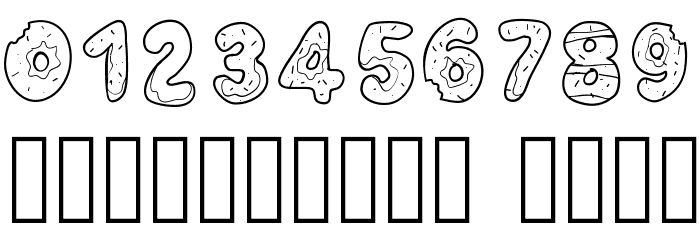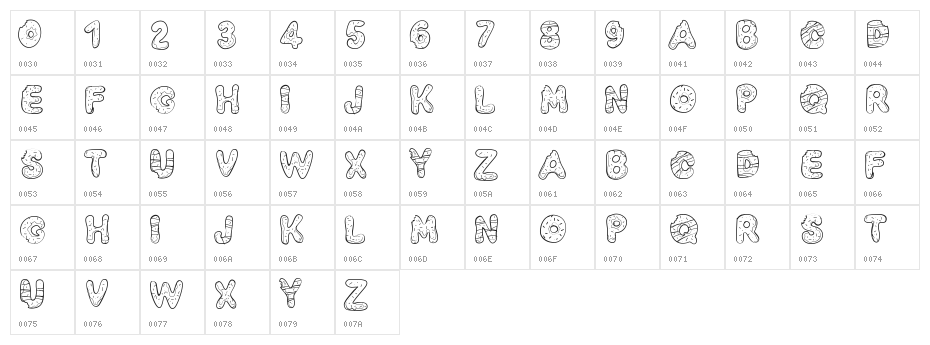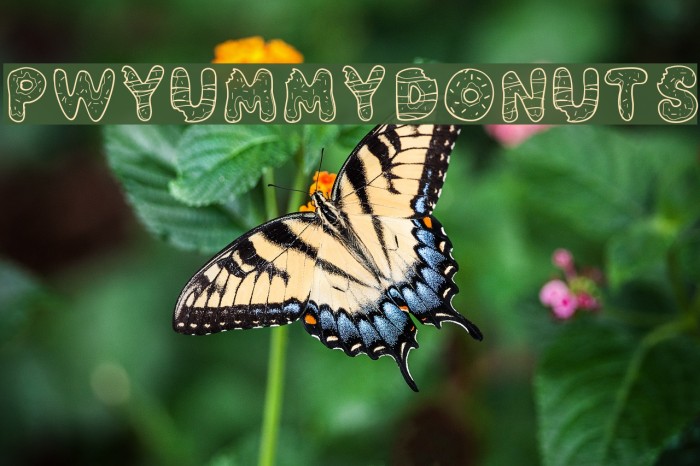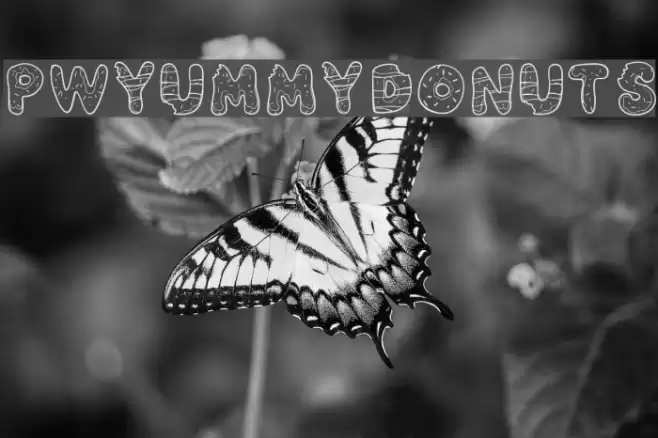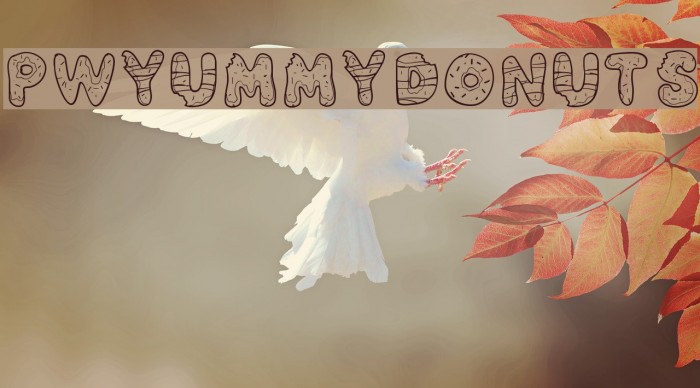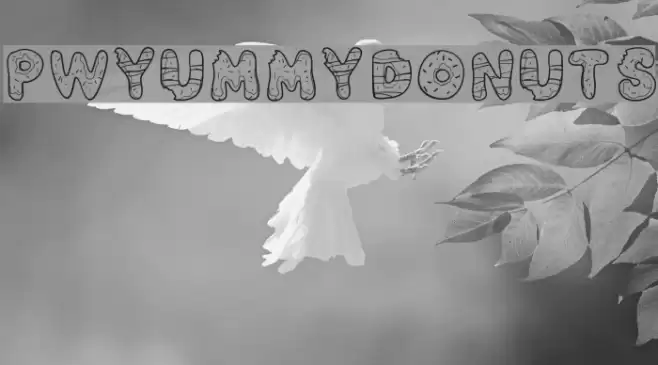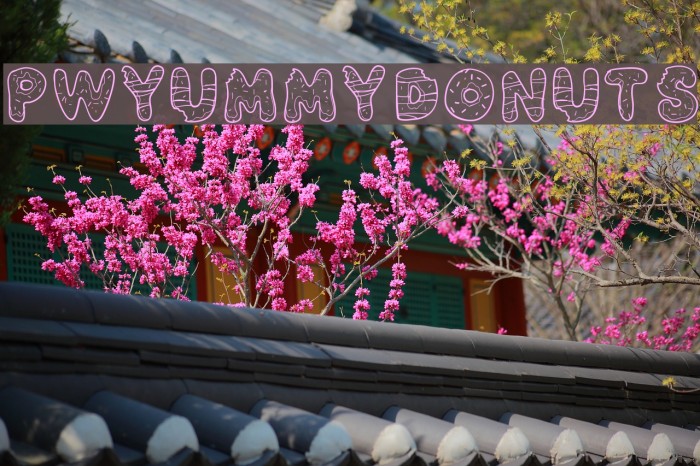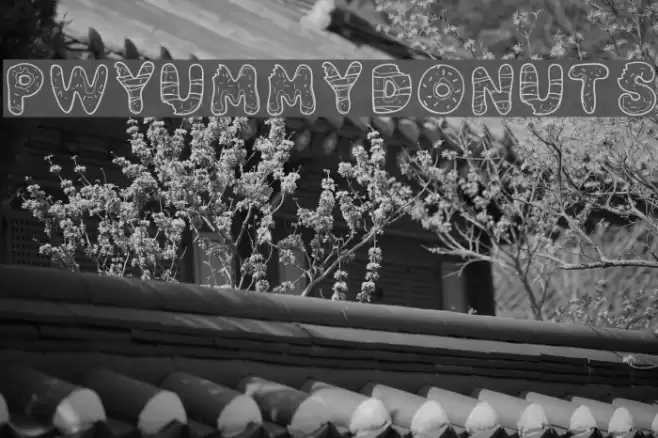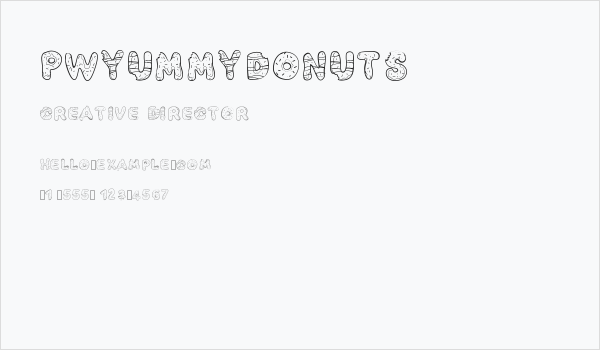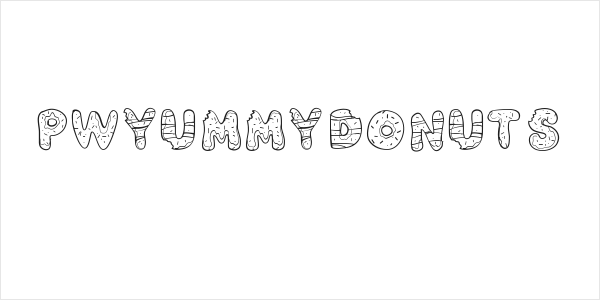
PWYummyDonuts Font
PWYummyDonuts Description
This playful and whimsical font features characters designed to resemble donuts, complete with sprinkles and icing patterns. Each letter and number is crafted with a rounded, soft appearance, mimicking the texture and look of a delicious pastry. The font is highly decorative, making it ideal for projects that require a fun and lighthearted touch. The unique design elements within each character add a layer of visual interest, making it stand out in any creative project. The font is perfect for use in children's materials, bakery branding, or any design that seeks to evoke a sense of joy and playfulness.
| Proposed Projects | Ideal for bakery branding, children's books, party invitations, and playful marketing materials. |